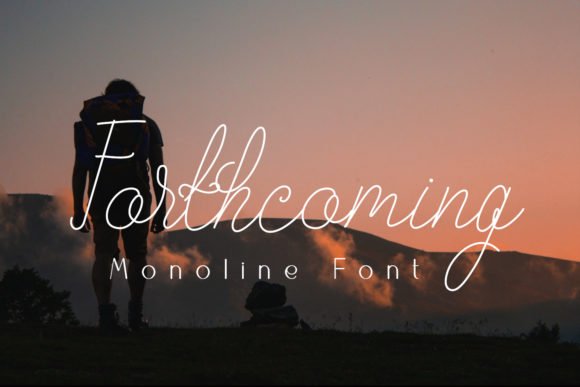
Unveiling the Perfect Handwritten Touch: Forthcoming Font
Have you ever been rummaging through a vintage stationery store, searching for the perfect handwritten font to add a touch of elegance to your wedding invitations? Or maybe you’re a designer constantly on the lookout for the perfect script to give your branding a personal, human feel. Whatever the case, we’re excited to introduce you to the Forthcoming Font, a stunning, thin, and elegant handwritten font designed to elevate your designs.
The Forthcoming Font is more than just a pretty face – it’s a valuable tool for designers looking to add a handwritten touch to their work. With its varying baseline, smooth lines, gorgeous glyphs, and stunning alternates, this font is perfect for wedding invitations, thank you cards, quotes, greeting cards, logos, business cards, and every other design that needs a little extra personality.
Forthcoming Font Key Features
- Unique Characteristics: Features a unique blend of modern and vintage design elements, creating a distinctive and eye-catching visual style.
Forthcoming Font Review
I recently had the chance to work with the Forthcoming Font, and I must say it’s a promising addition to any designer’s toolkit. ✨ One of the things that stood out to me was its versatility. Whether you’re working on a modern website or a classic print project, Forthcoming Font seems to adapt seamlessly to the task at hand.
- Wide Character Set: Forthcoming Font has a vast character set that covers multiple languages, making it a great choice for international projects.
- Customizable: With its advanced customization options, you can fine-tune the font to fit your specific design needs.
- High-Quality Glyphs: The font’s glyphs are crisp and clear, making it perfect for body text or display use.
However, there are some limitations to consider ⚠️:
- Lack of Personality: While Forthcoming Font is certainly professional, it may lack the unique personality that some designers look for in a font.
- Not Ideal for Display Use: While the font’s glyphs are high-quality, they may not be the best choice for display use, such as titles or headings.
Overall, I’d give Forthcoming Font 4 out of 5 stars. It’s a solid, dependable font that’s perfect for a wide range of projects. While it may not stand out in a crowded font market, it’s certainly worth considering for your next design project.
Some common use cases for the Forthcoming Font include:
- Headings and titles for blog posts, articles, and social media
Alternatives to Forthcoming Font
What is the character set of Forthcoming Font?
The Forthcoming Font includes a comprehensive character set that supports most languages, including Latin, Cyrillic, Greek, and many others. The font includes over 1,000 glyphs, including a wide range of symbols, punctuation marks, and special characters.